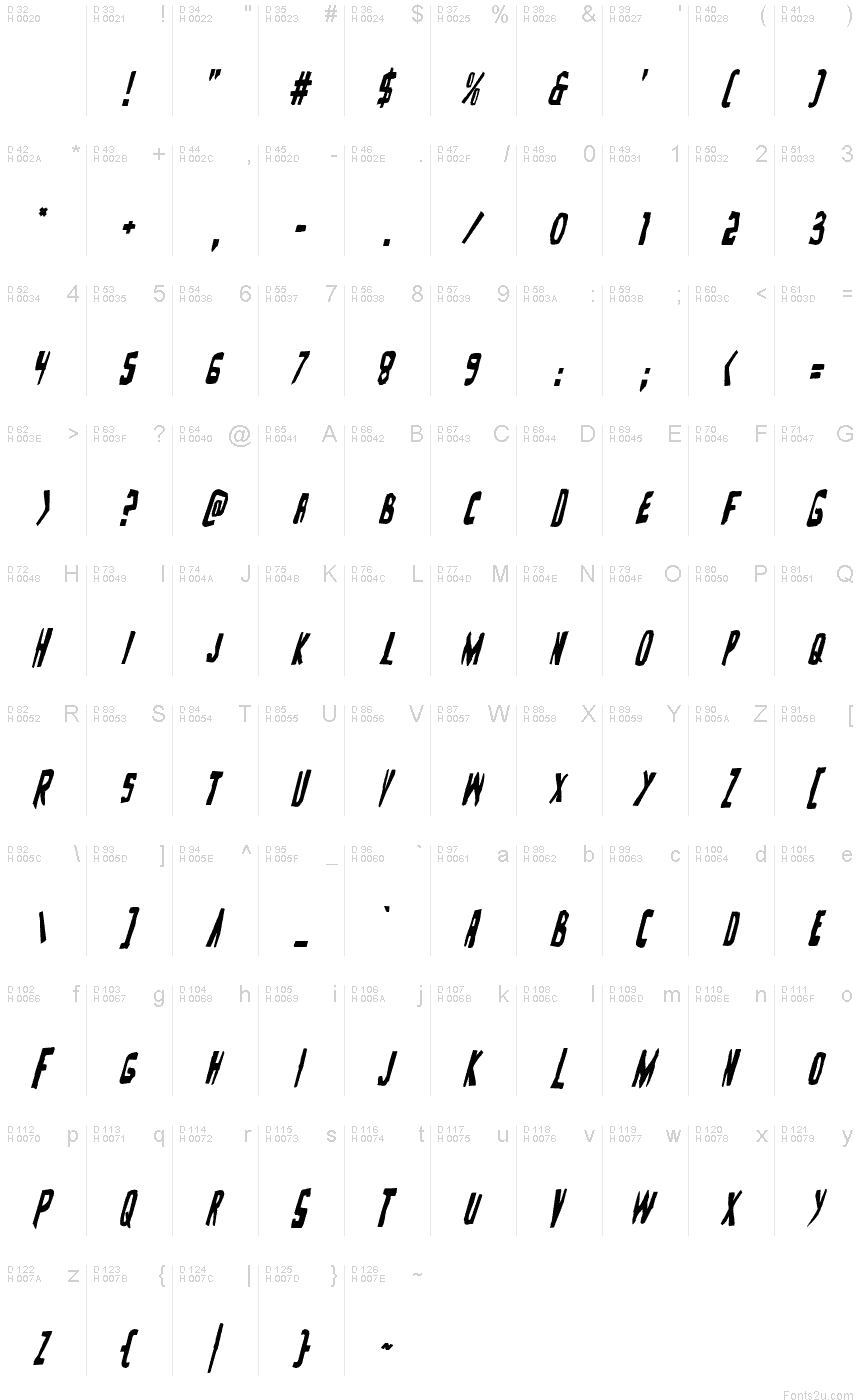
Zakenstein Condensed Italic by Daniel Zadorozny of Iconian Fonts is a free graffiti display font with a hard, restless slant. Its tightly packed letters stretch upward in sharp, uneven strokes. Abrupt cuts and swollen curves give the lettering the raw look of a quickly painted tag.
A skate poster is an especially convincing setting, with album covers, streetwear graphics, and game titles offering similar outlets for its compressed aggression. The font is strongest when the lettering itself needs to supply the impact of a graffiti mark.
Zakenstein Condensed Italic
Condensed Italic